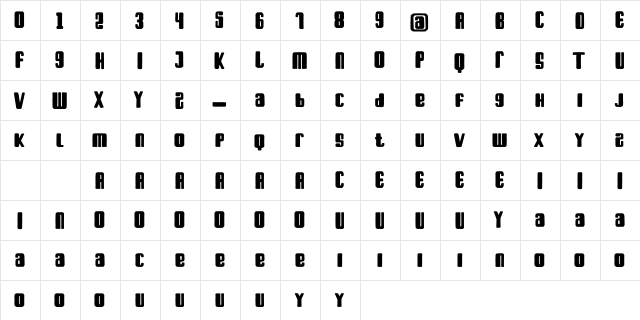
Bark For Life Regular
| Foundry | LetterStock |
| Designer | Guguh Gumantoro |
Design Context for Bark For Life Typeface
Bark For Life is a composed and adaptable typeface that performs quietly and consistently across a wide range of design contexts.